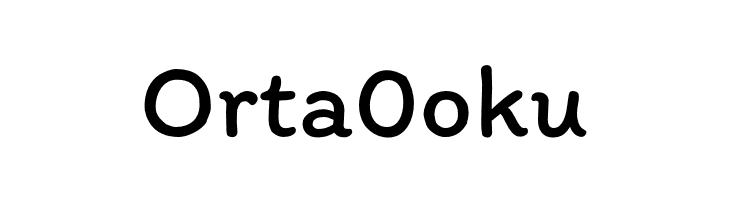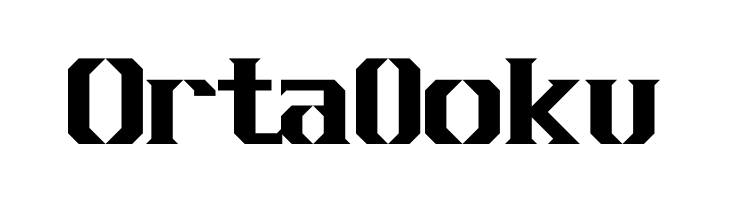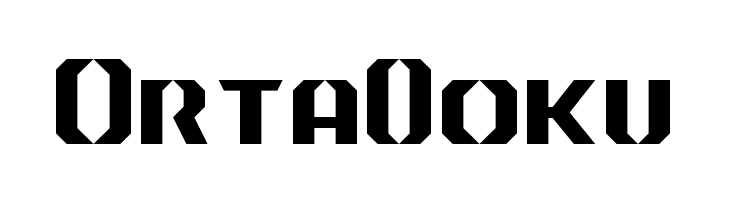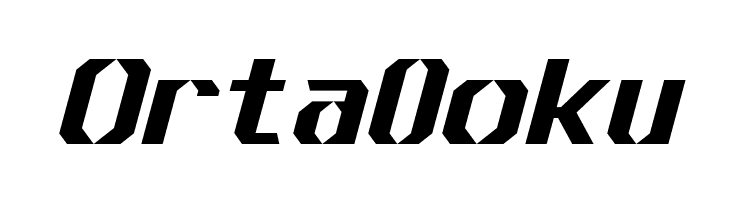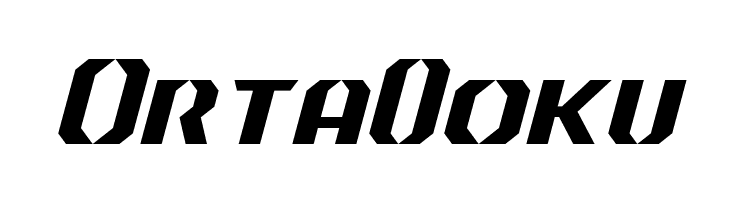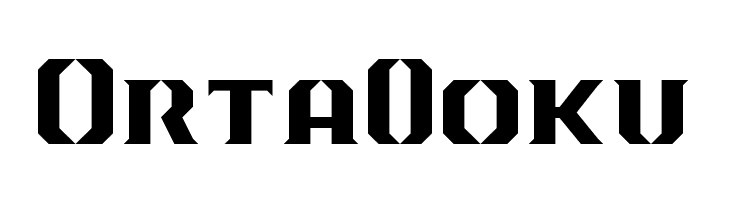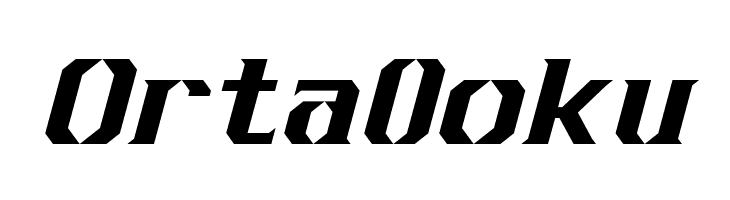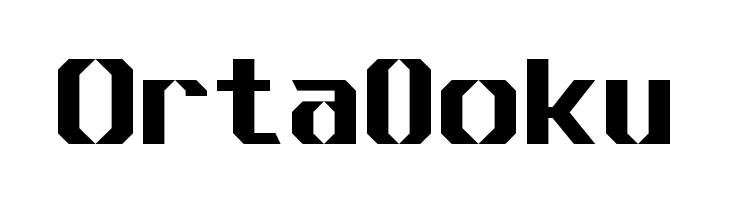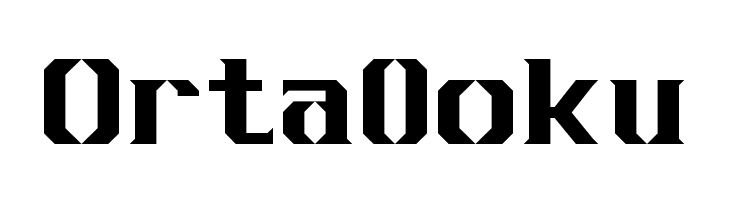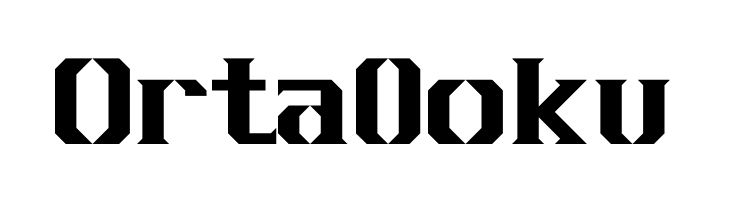
A playful, rounded, and handwritten-style font with smooth curves.
A bold, angular font with a modern, industrial aesthetic.
A bold, angular font with a modern geometric style.
A bold, geometric font with sharp, angular edges and a modern, futuristic style.
A bold, angular, and modern font with a dynamic slant.
A bold, geometric font with sharp, angular edges and a modern, industrial feel.
A bold, angular, and italic font with a futuristic and dynamic style.
A bold, geometric font with sharp, angular edges for a modern look.
A bold, angular italic font with a modern and dynamic style.
A bold, angular serif font with a modern yet classic appeal.